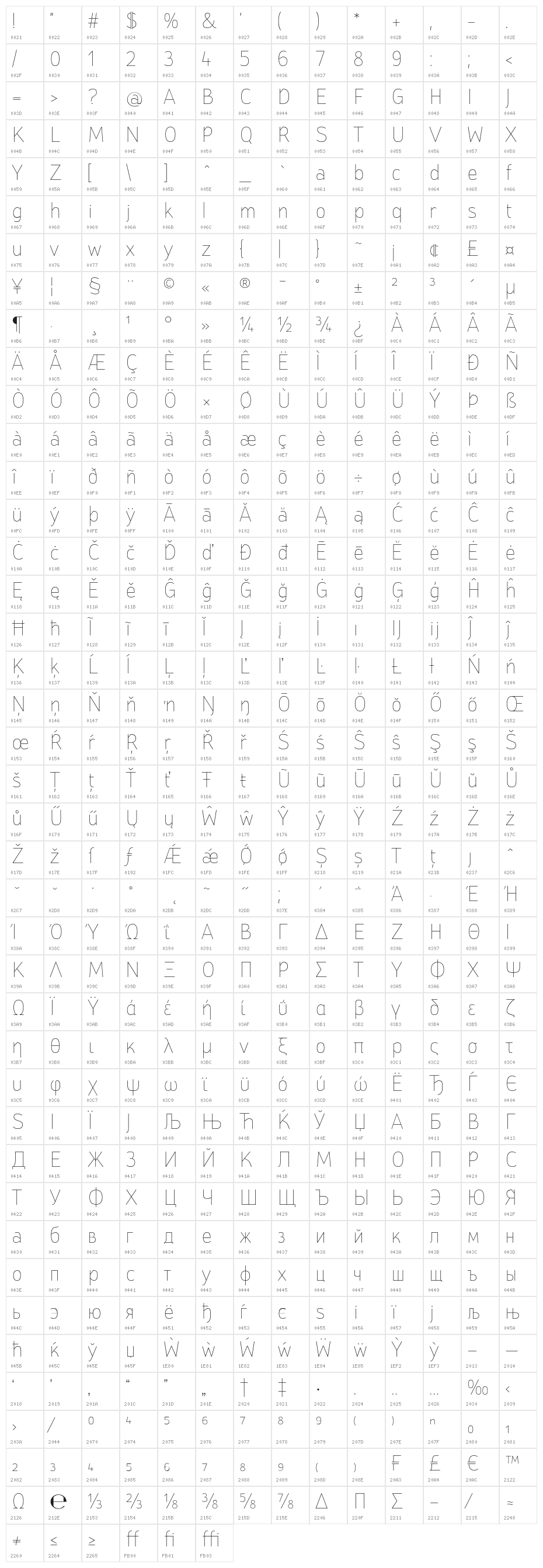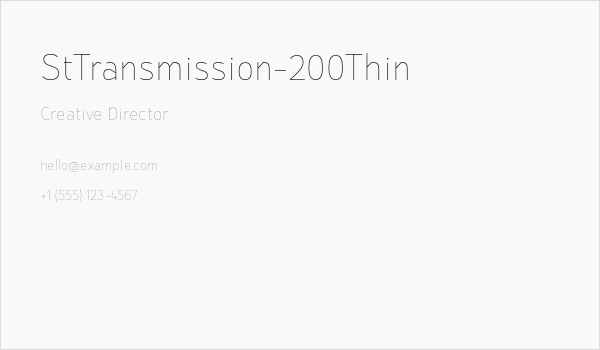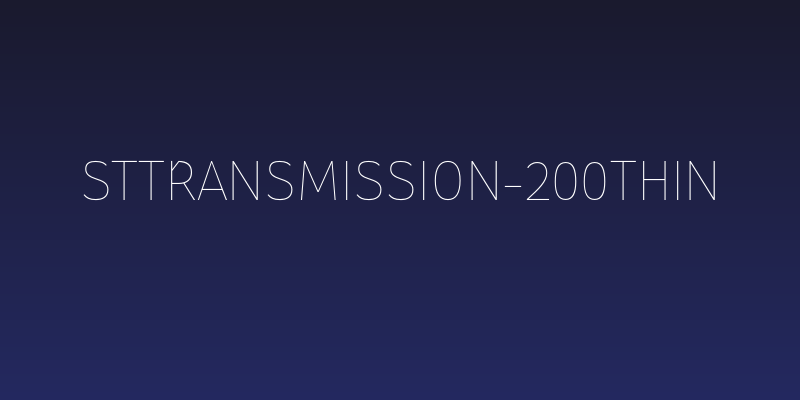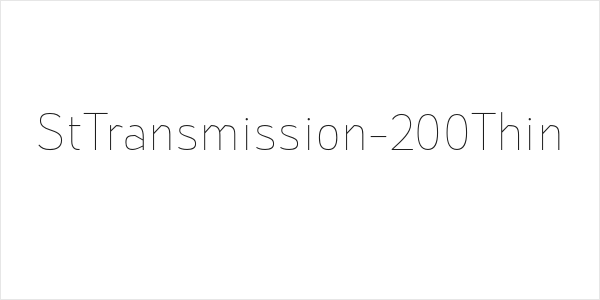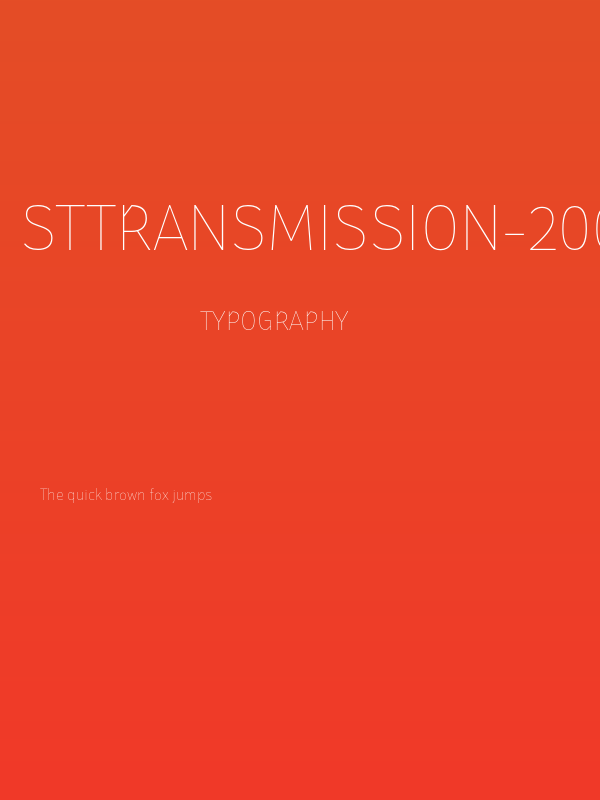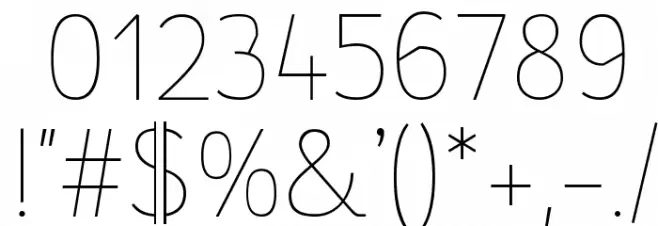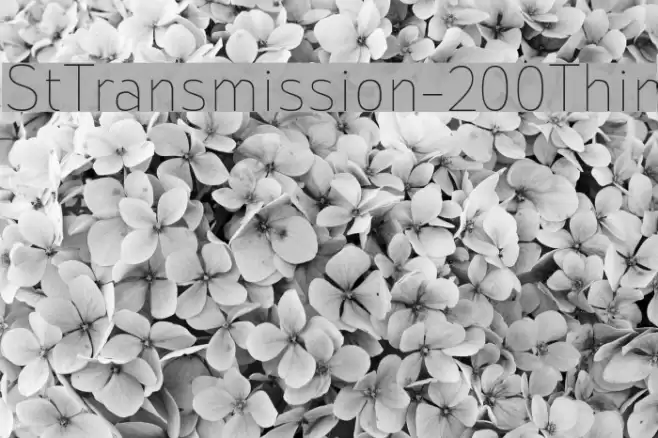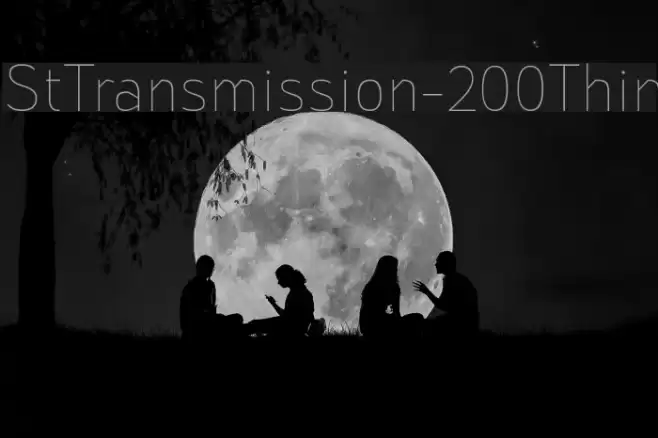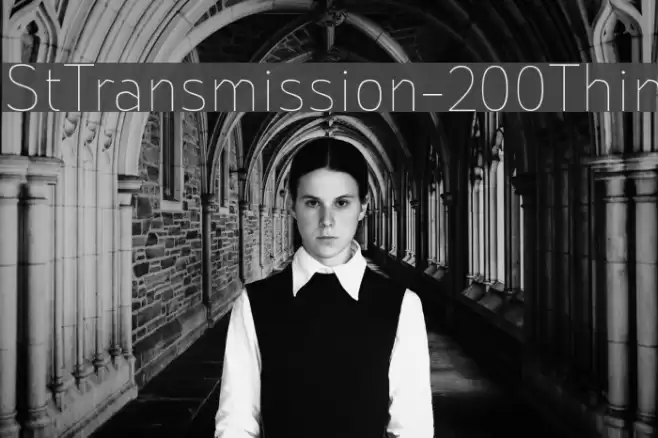
StTransmission-200Thin Font
StTransmission-200Thin Description
This font features a sleek and modern design with clean lines and a minimalist aesthetic. The characters are thin and elongated, providing a sense of elegance and sophistication. The uppercase and lowercase letters maintain a consistent style, with rounded edges and a uniform stroke width. The numerals are clear and easy to read, complementing the overall design. Special characters are included, maintaining the same thin and refined appearance. This font is ideal for projects that require a contemporary and stylish look.
| Use Case | Headlines, Body text, Logos |
| Proposed Projects | Ideal for branding, editorial design, websites, and modern advertising campaigns. |